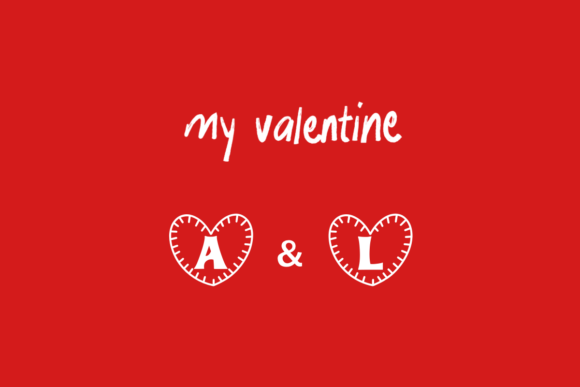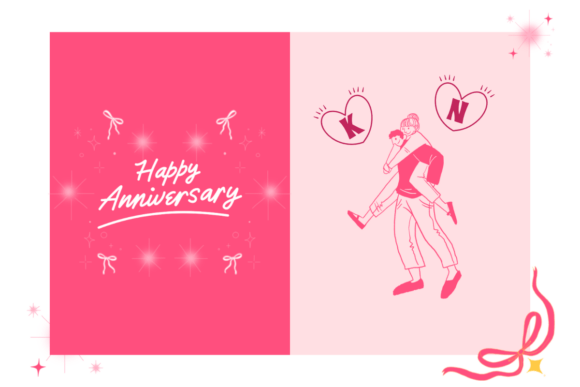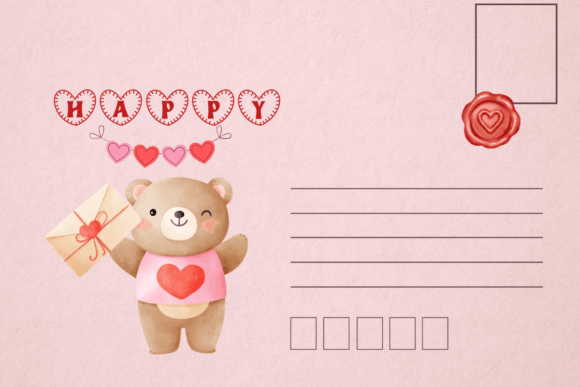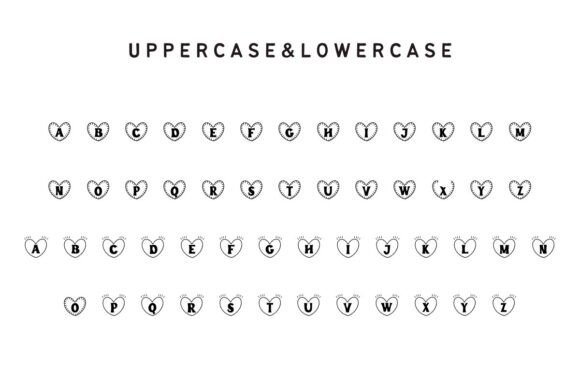
Introducing Heart Letter Font: The Sweetest Way to Add Romance to Your Designs
Are you looking for a way to add a touch of sweetness and romance to your designs, cards, invitations, and crafts? Look no further than the Heart Letter Font! This adorable font features each letter carefully set inside a small heart shape, making it the perfect choice for anyone who wants to convey love, kindness, and warmth in their creative projects.
What is Heart Letter Font?
Heart Letter Font is a unique and decorative font that is designed to bring a smile to your face. Each letter of the alphabet is intricately crafted to fit snugly inside a tiny heart, creating a charming and whimsical effect that is sure to delight. Whether you’re a designer, crafter, or DIY enthusiast, this font is sure to inspire your creativity and add a personal touch to your work.
Perfect for Romantic Occasions
With Heart Letter Font, you can create beautiful and meaningful designs for romantic occasions like Valentine’s Day, anniversaries, weddings, and more. The font’s sweet and sentimental vibe makes it ideal for:
- Valentine’s Day cards and gifts
- Wedding invitations and decorations
- Anniversary cards and gifts
- Love letters and scrapbook pages
- Romantic crafts and DIY projects
Heart Letter Font is incredibly versatile and can be used in a wide range of design projects, including:
- Digital art and illustrations
- Paper crafts and card making
- Scrapbooking and photo albums
- Stationery and journaling
- Web design and social media graphics
Why Choose Heart Letter Font?
So why choose Heart Letter Font over other decorative fonts? Here are just a few reasons:
- Unique and eye-catching: The heart-shaped letters are sure to grab attention and add a touch of personality to your designs.
- High-quality design: The font is carefully crafted to ensure that each letter is clear and legible, even at small sizes.
- Versatile: The font can be used in a wide range of design projects, from digital art to paper crafts.
Tips for Using Heart Letter Font
Here are a few tips for getting the most out of Heart Letter Font:
- Experiment with colors: Try pairing the font with different colors and textures to create a unique and eye-catching effect.
- Mix and match: Combine Heart Letter Font with other fonts and design elements to create a truly personalized look.
- Pay attention to size: Make sure to adjust the font size to fit your design needs, and don’t be afraid to get creative with font sizes and styles.